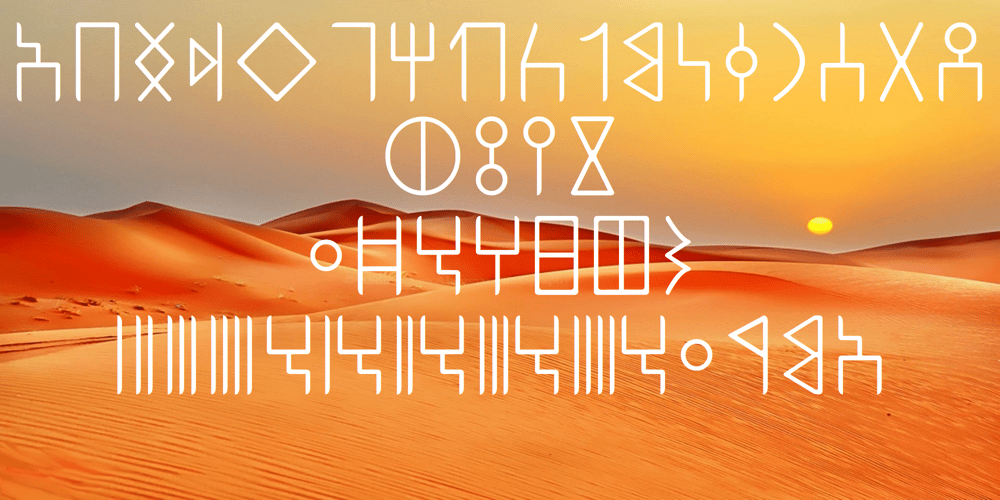
Ongunkan South Arabian Script Font Family was designed by Osman Nuri ALKAN and published by Runic World Tamgacı. Ongunkan South Arabian Script contains 1 styles and family package options. The Ancient South Arabian script (Old South Arabian 𐩣𐩯𐩬𐩵 ms3nd; modern Arabic: الْمُسْنَد musnad) branched from the Proto-Sinaitic script in about the 9th century BCE. It was used for writing the Old South Arabian languages Sabaic, Qatabanic, Hadramautic, Minaean, and Hasaitic, and the Ethiopic language Ge’ez in Dʿmt. The earliest inscriptions in the script date to the 9th century BCE in Yemen. There are no letters for vowels, which are marked by matres lectionis.Its mature form was reached around 800 BCE, and its use continued until the 6th century CE, including Ancient North Arabian inscriptions in variants of the alphabet, when it was displaced by the Arabic alphabet In Ethiopia and Eritrea, it evolved later into the Ge’ez script, which, with added symbols throughout the centuries, has been used to write Amharic, Tigrinya and Tigre, as well as other languages (including various Semitic, Cushitic, and Nilo-Saharan languages).